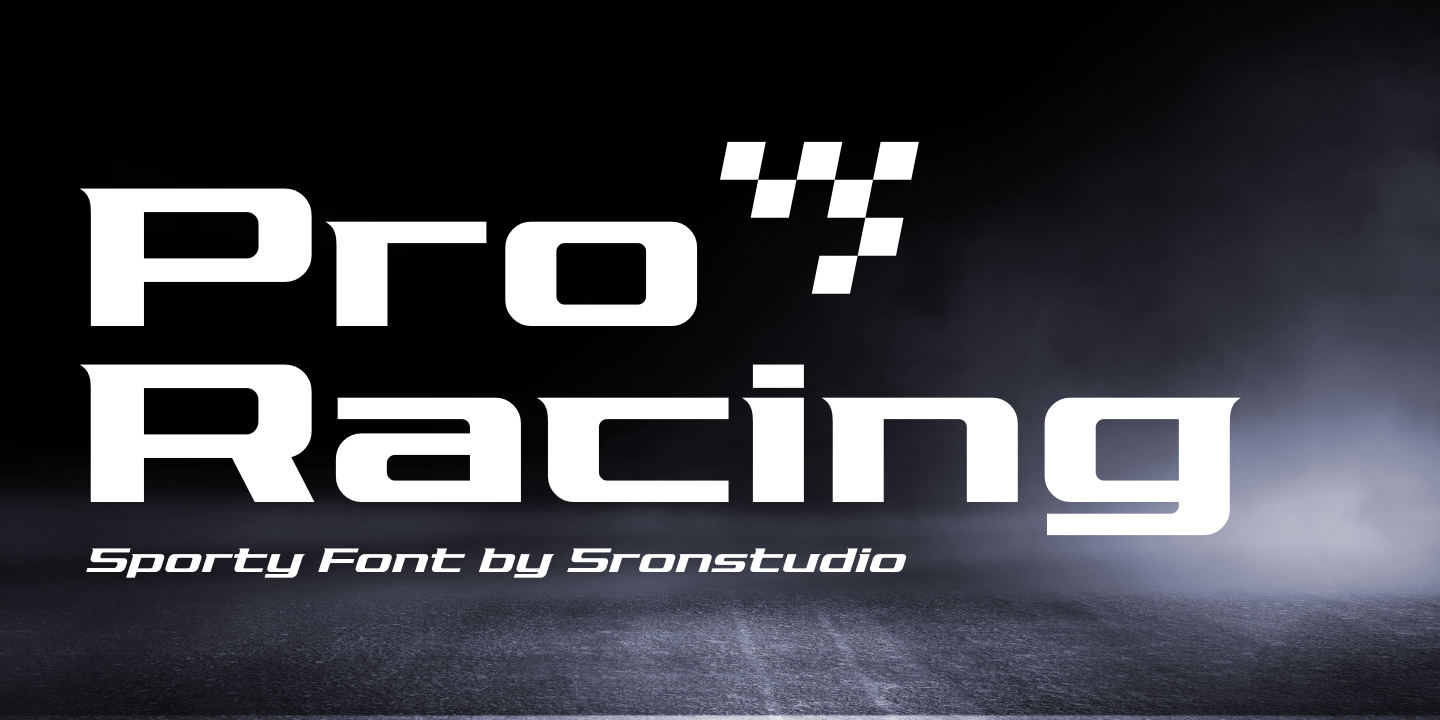
Pro Racing Font is perfect for motorsport team branding, racing event posters, automotive dealership signage, speedway advertisements, Formula One graphics, NASCAR promotional materials, drag racing merchandise, karting club logos, motorcycle rally banners, and high-performance vehicle advertising.
What makes Pro Racing Font so exciting is its dynamic embodiment of speed and adrenaline through aerodynamically-inspired letterforms that capture the raw power and precision of professional motorsports. The font's design philosophy channels the engineering excellence of racing technology, featuring sharp angles, streamlined curves, and aggressive proportions that mirror the sleek bodywork and cutting-edge aerodynamics of championship race cars. Each character appears to slice through air with maximum efficiency, creating a visual language that instantly communicates velocity, competition, and the relentless pursuit of victory. This remarkable typeface transforms ordinary text into high-octane expressions of racing passion that resonate with audiences who live for the thrill of speed and competitive excellence.
The Pro Racing Font family includes high-performance variations: Regular, Bold, Light, Medium, Condensed, Extended, Italic, Speed, and Turbo styles. Each variation maintains the font's characteristic racing intensity while offering different levels of aerodynamic aggression and competitive detail for various motorsport design applications.
When searching for a typeface that captures the essence of professional racing and automotive excellence, Pro Racing Font Free Download represents the ultimate fusion of speed aesthetics with typographic performance that elevates any project to championship levels of visual impact and competitive appeal.
The aerodynamically engineered letterforms of Pro Racing Font demonstrate superior attention to racing design principles, featuring wind-tunnel tested proportions, precision spacing, and performance-optimized angles that ensure maximum readability while maintaining the font's distinctive motorsport character. Its versatile design adapts seamlessly from intimate racing team badges to massive speedway billboards.
Professional designers working on automotive industries, motorsport organizations, and performance brands particularly value the font's ability to convey speed, precision, and competitive excellence. The typeface works exceptionally well for projects targeting racing enthusiasts, automotive professionals, and anyone seeking to project high-performance positioning and championship-winning appeal.
The comprehensive OpenType features of Pro Racing Font include racing alternates, speed ligatures, and specialized motorsport characters that enable designers to create authentic racing typography while maintaining the font's distinctive competitive character throughout all design elements and automotive applications.